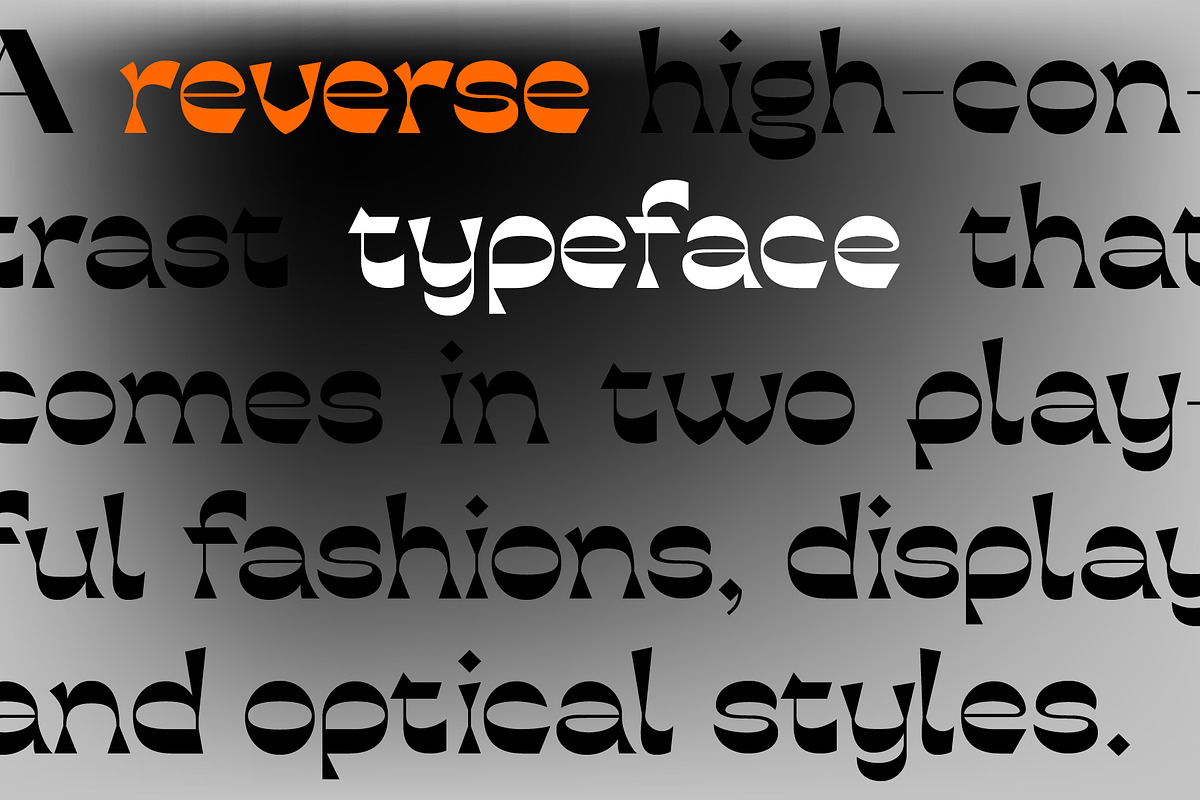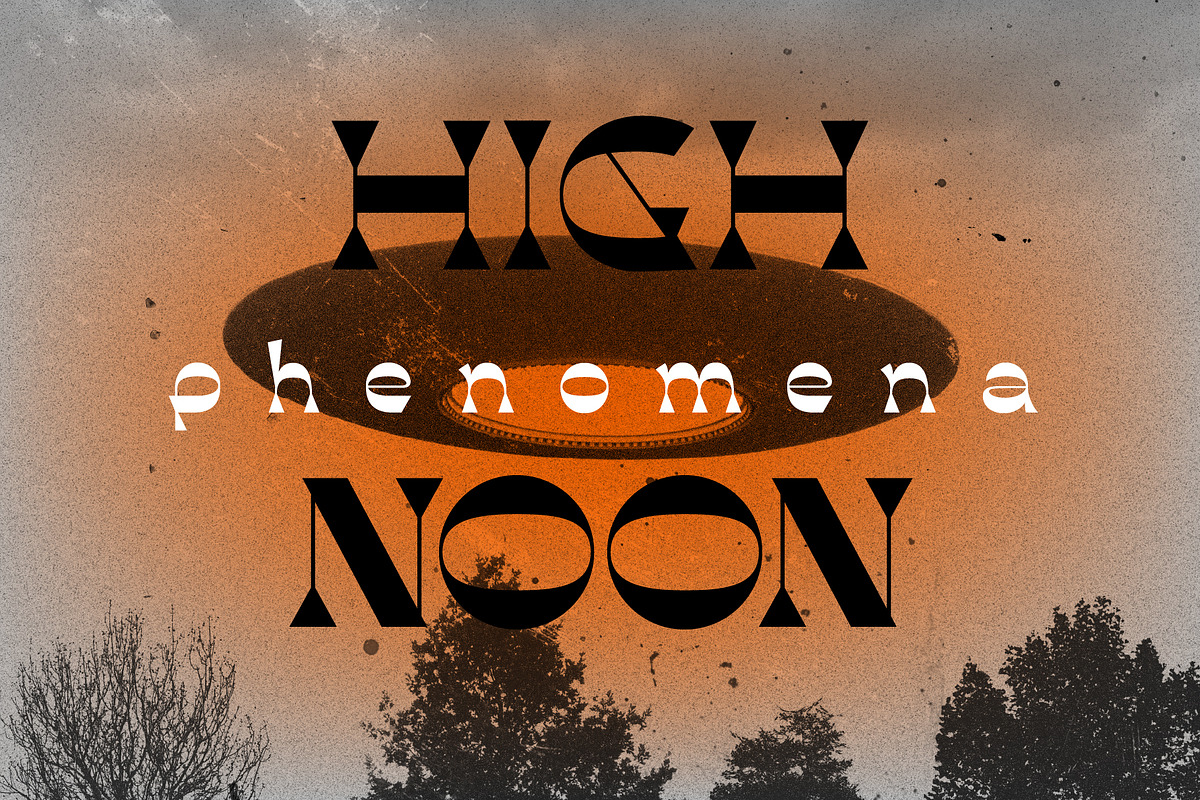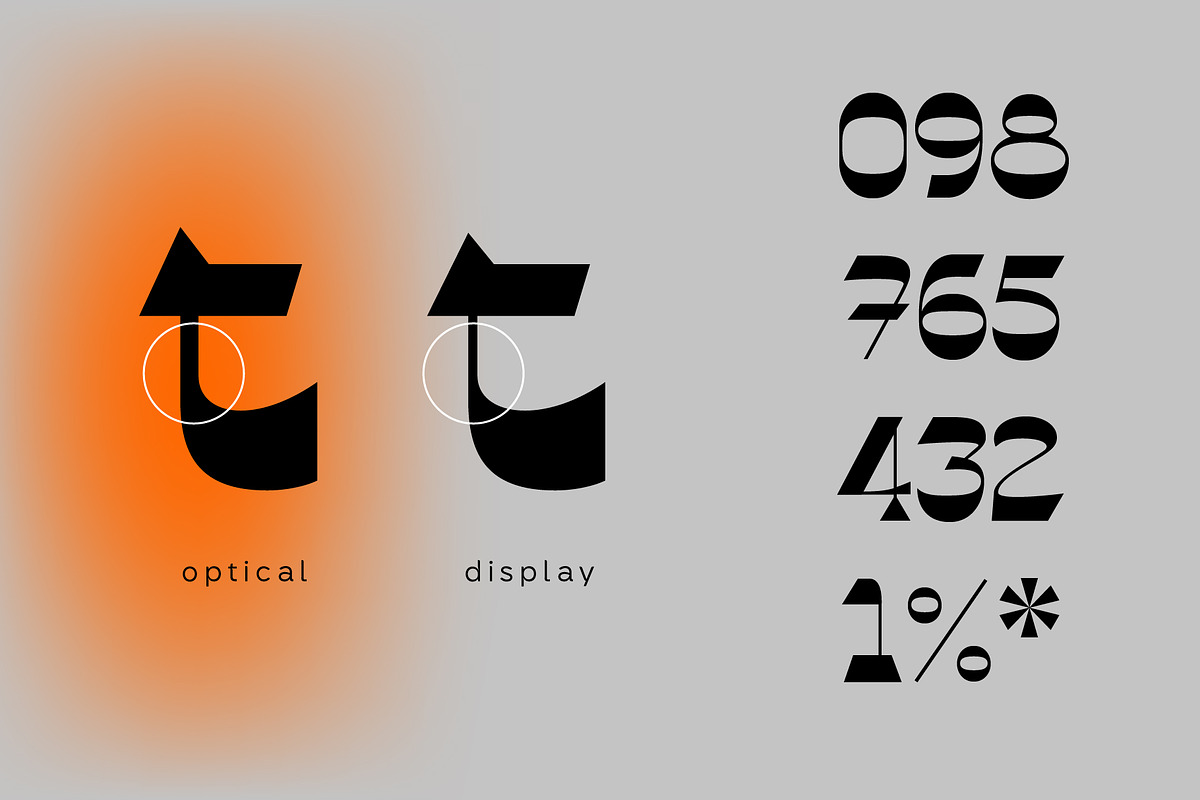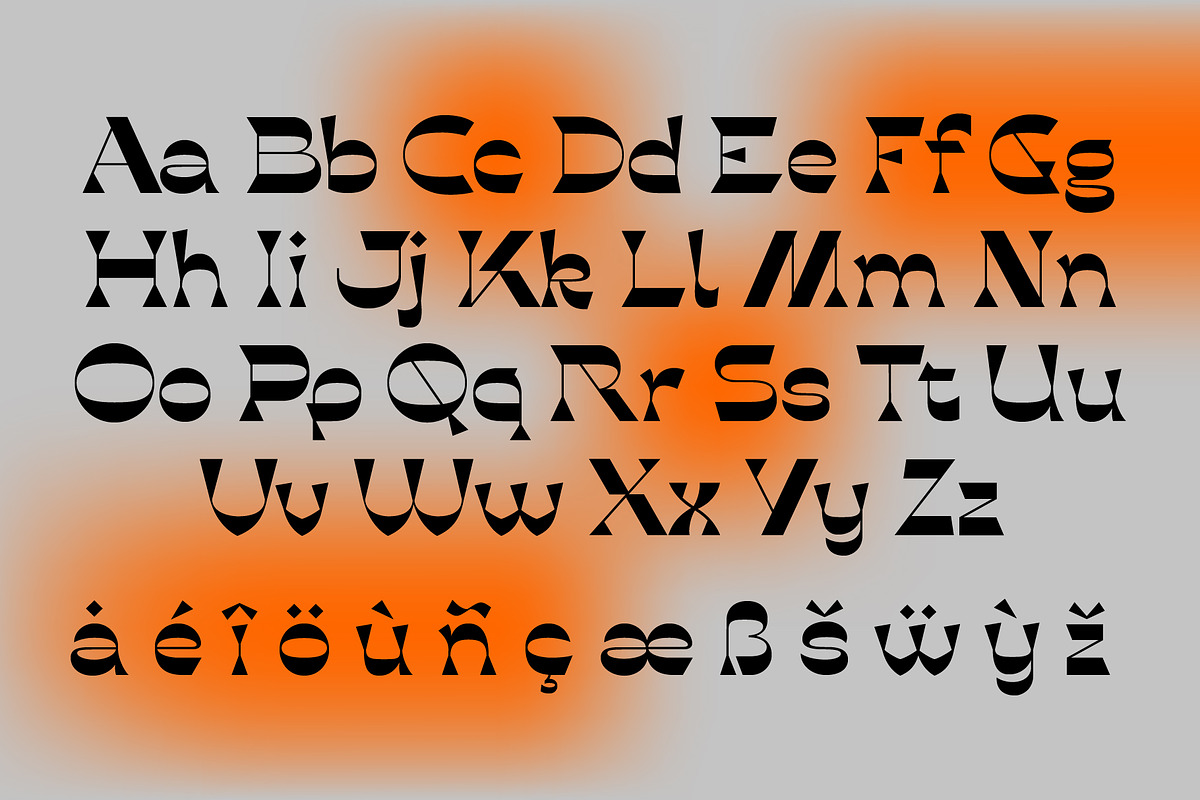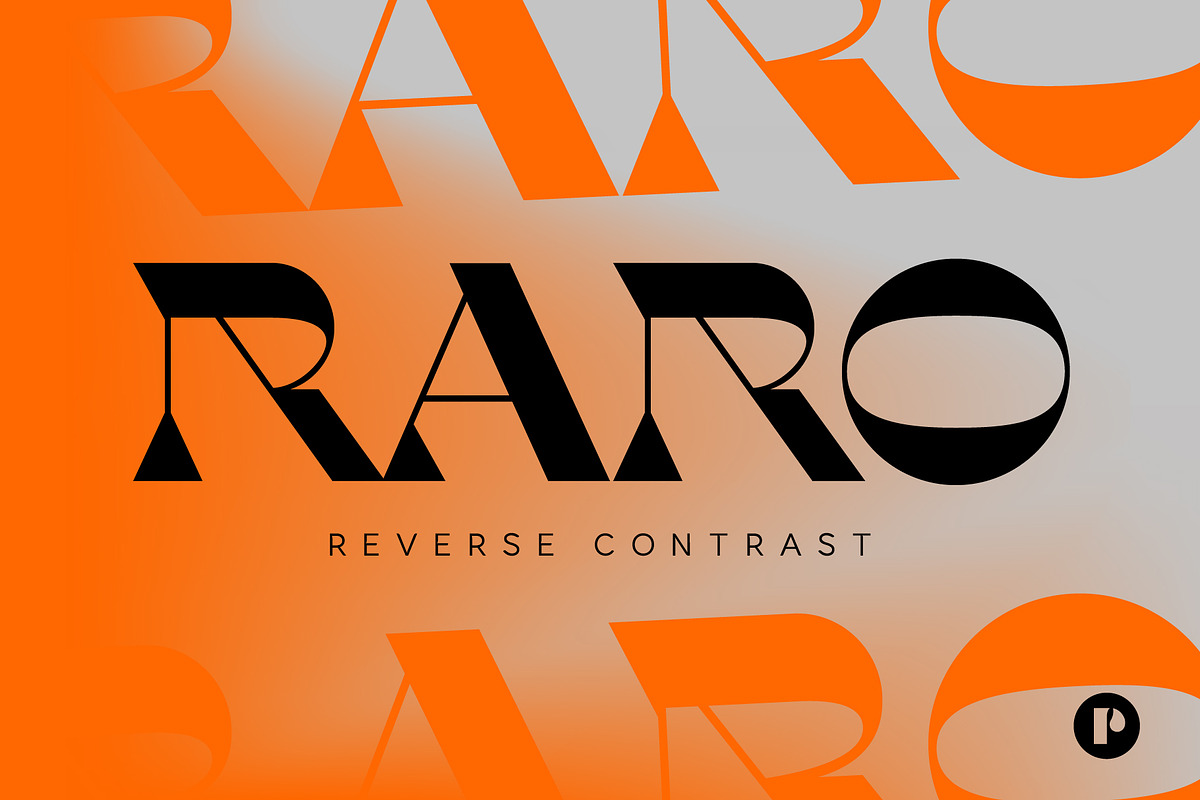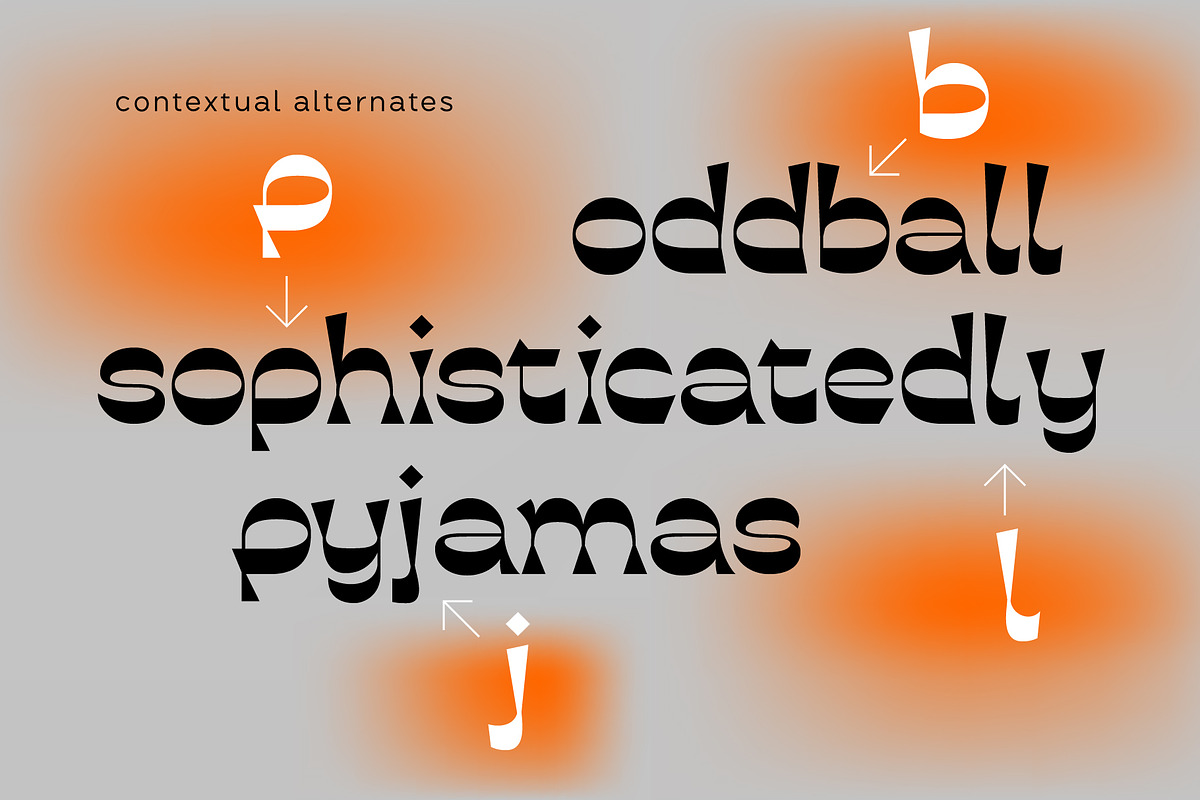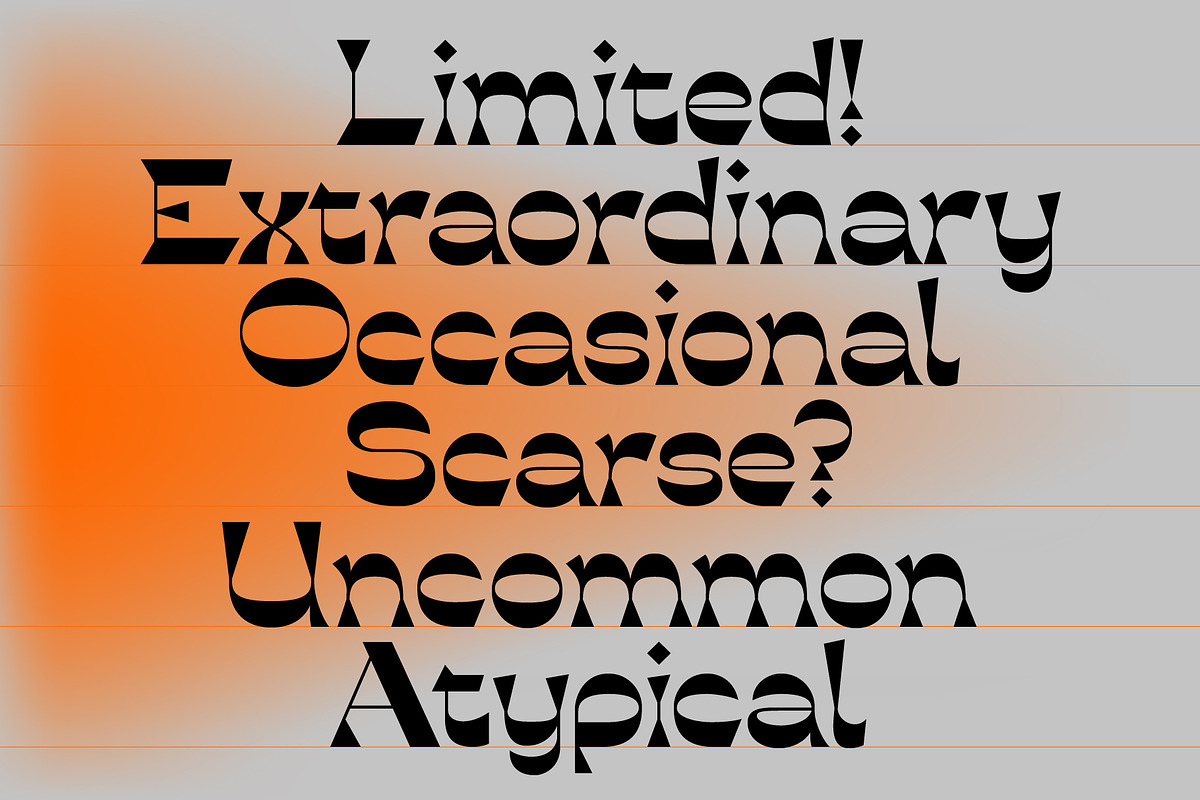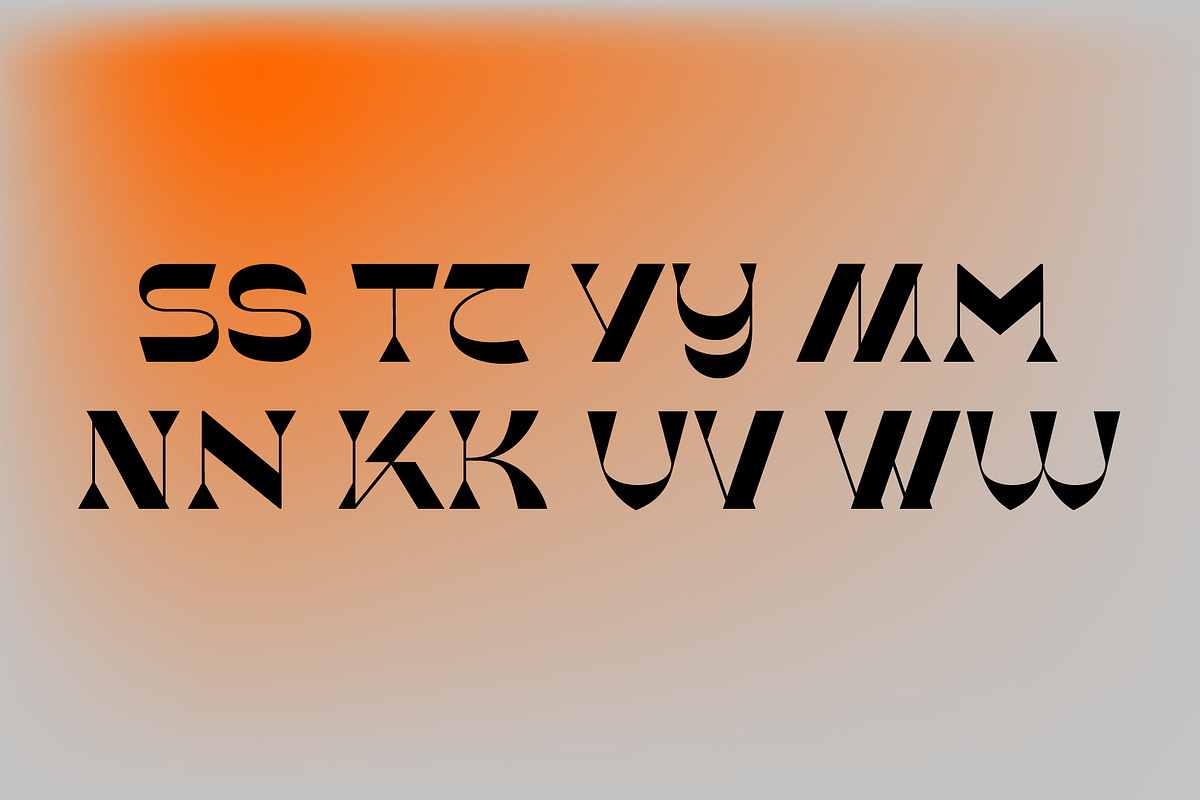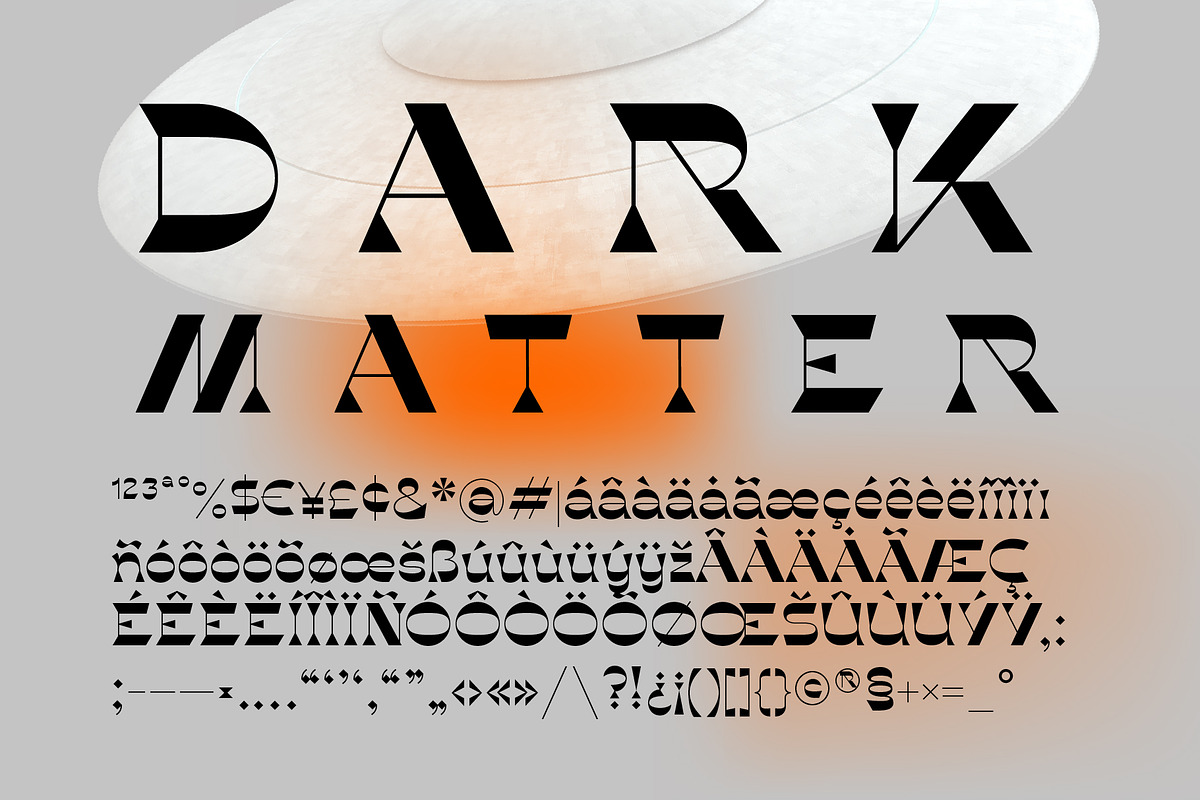
Raro | Futuristic serifs
This reverse contrast typeface is meant for impactful display design. It brings a unique aesthetic not seen in serif typefaces often. It comes with 200+ glyphs and several alternates for you to play with, and two regular styles: Display and Optical. While the display style has maximum contrast intended for bigger sizes, its optical counterpart allows its use in smaller scales improving legibility.